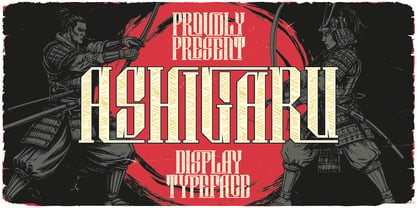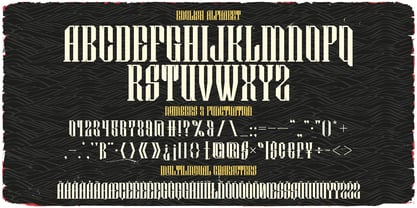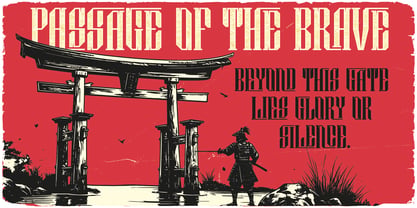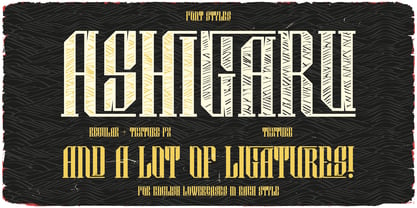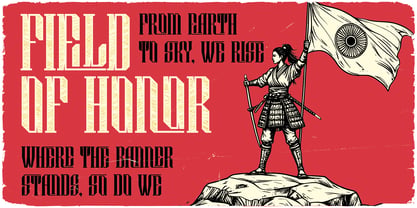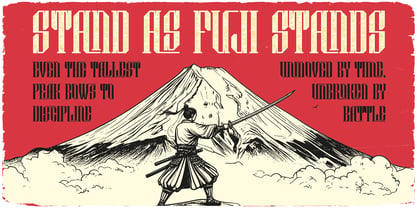
Ashigaru
by Vozzy
The Ashigaru Font Family was designed by Oleg Voznyy and published by Vozzy. Ashigaru contains 3 styles and family package options. More about this family
Introducing the captivating font family "Ashigaru," designed to make a statement in headlines and accent inscriptions. This unique typeface is perfect for attracting attention and enhancing your creative projects. "Ashigaru" includes a rich set of additional characters, punctuation marks, and multilingual options, along with an extensive range of standard ligatures—ensuring compatibility with your software's OpenType features. Elevate your designs with the striking presence of "Ashigaru," ideal for branding, web design, and editorial use.
Designers: Oleg Voznyy
Foundry: Vozzy